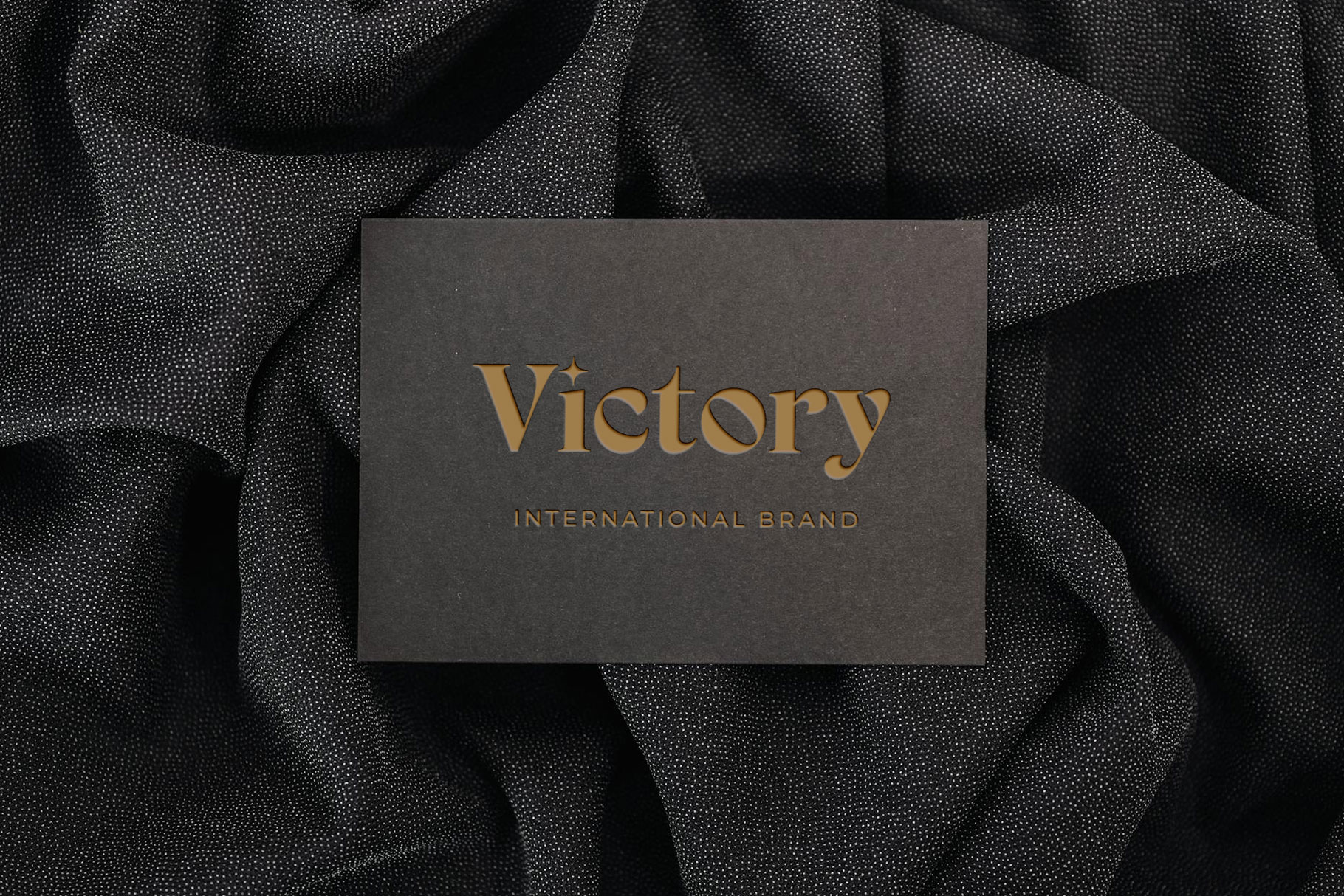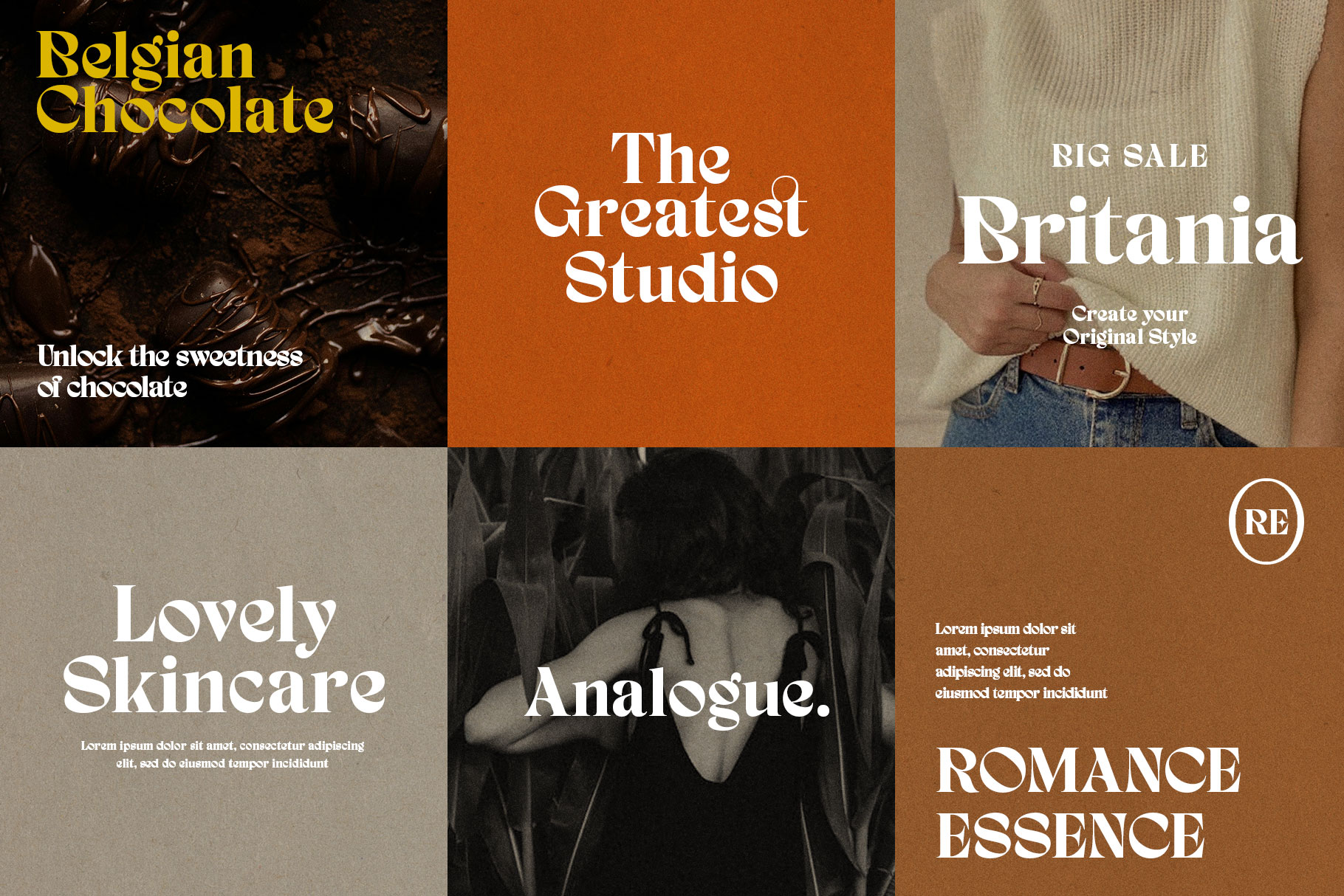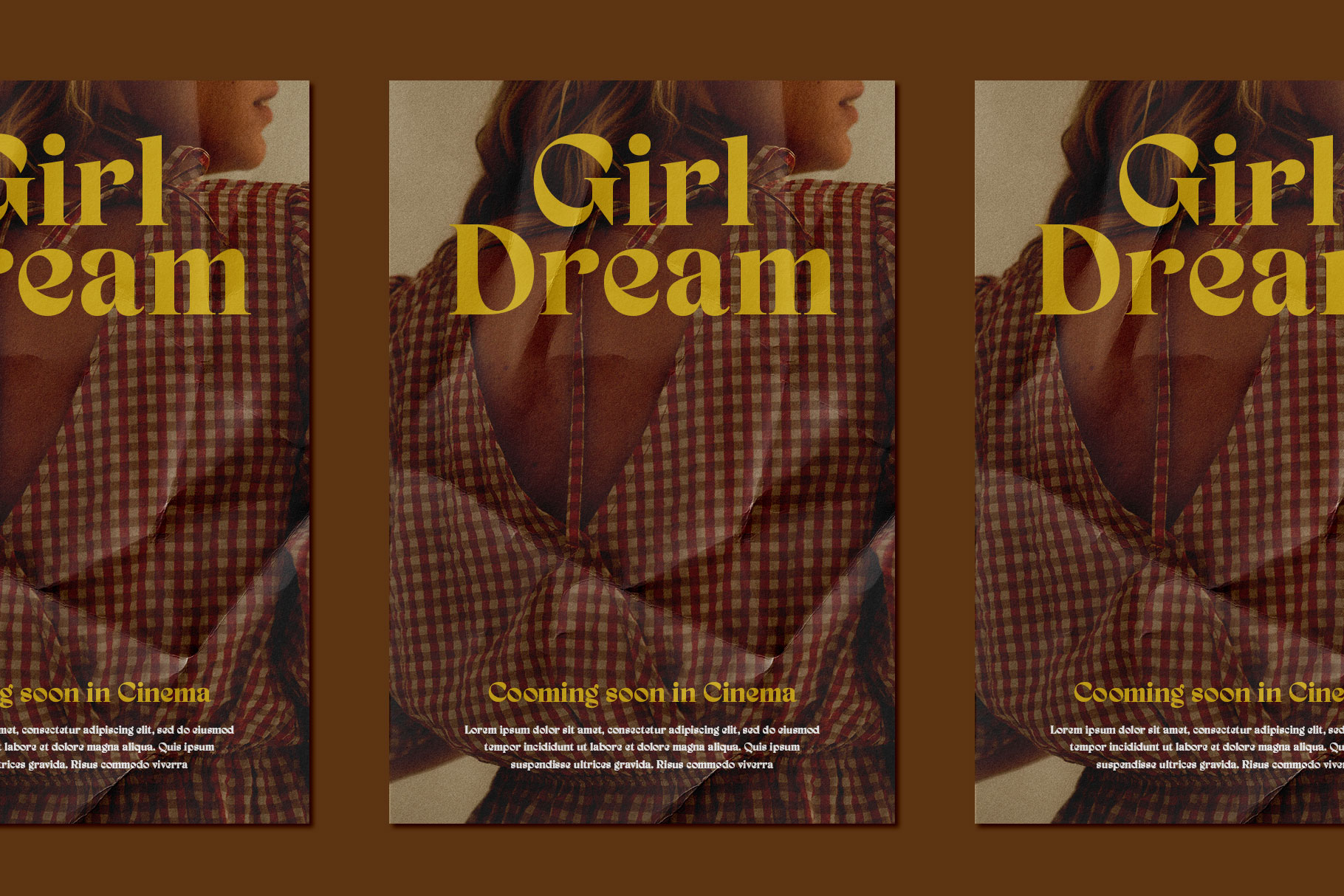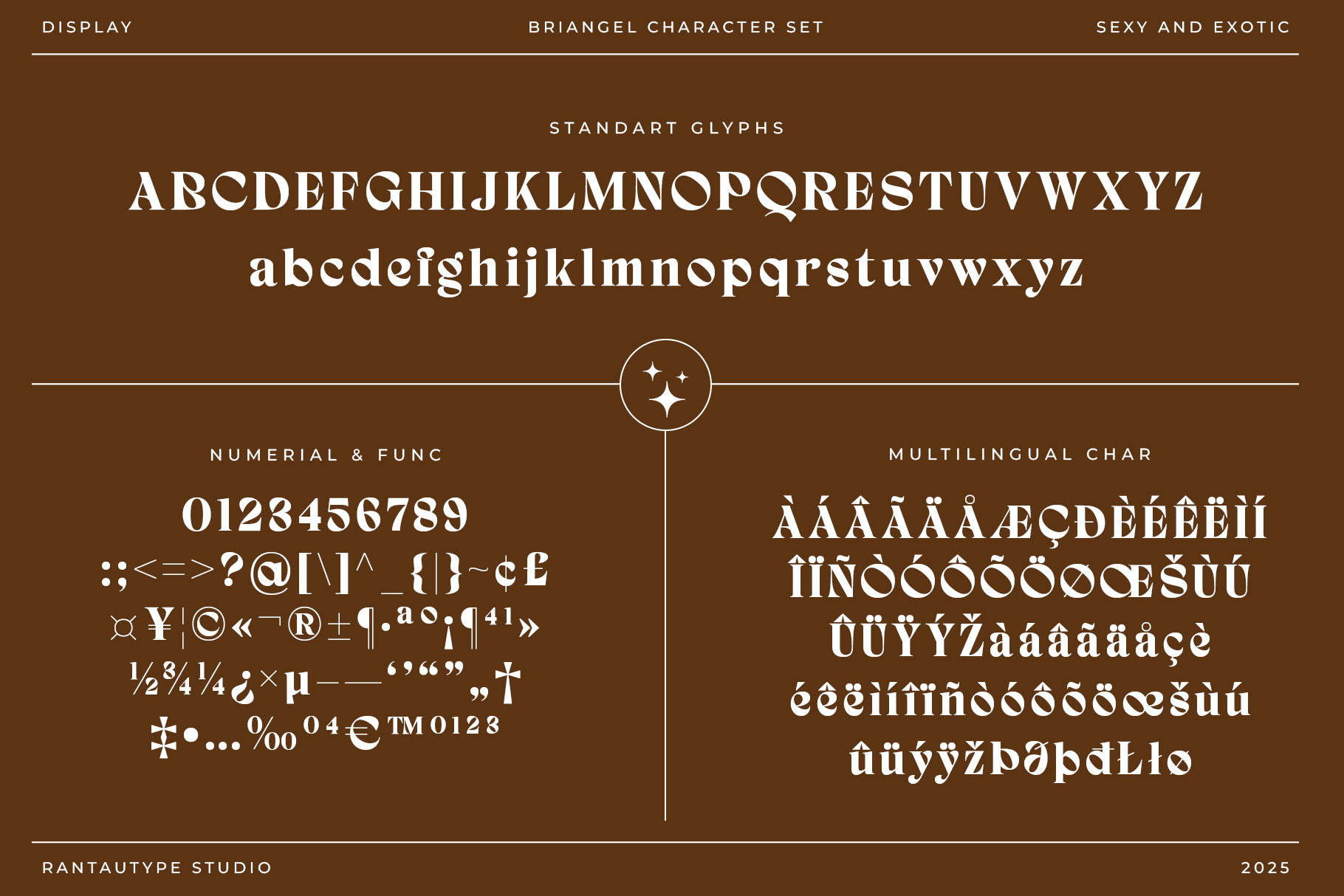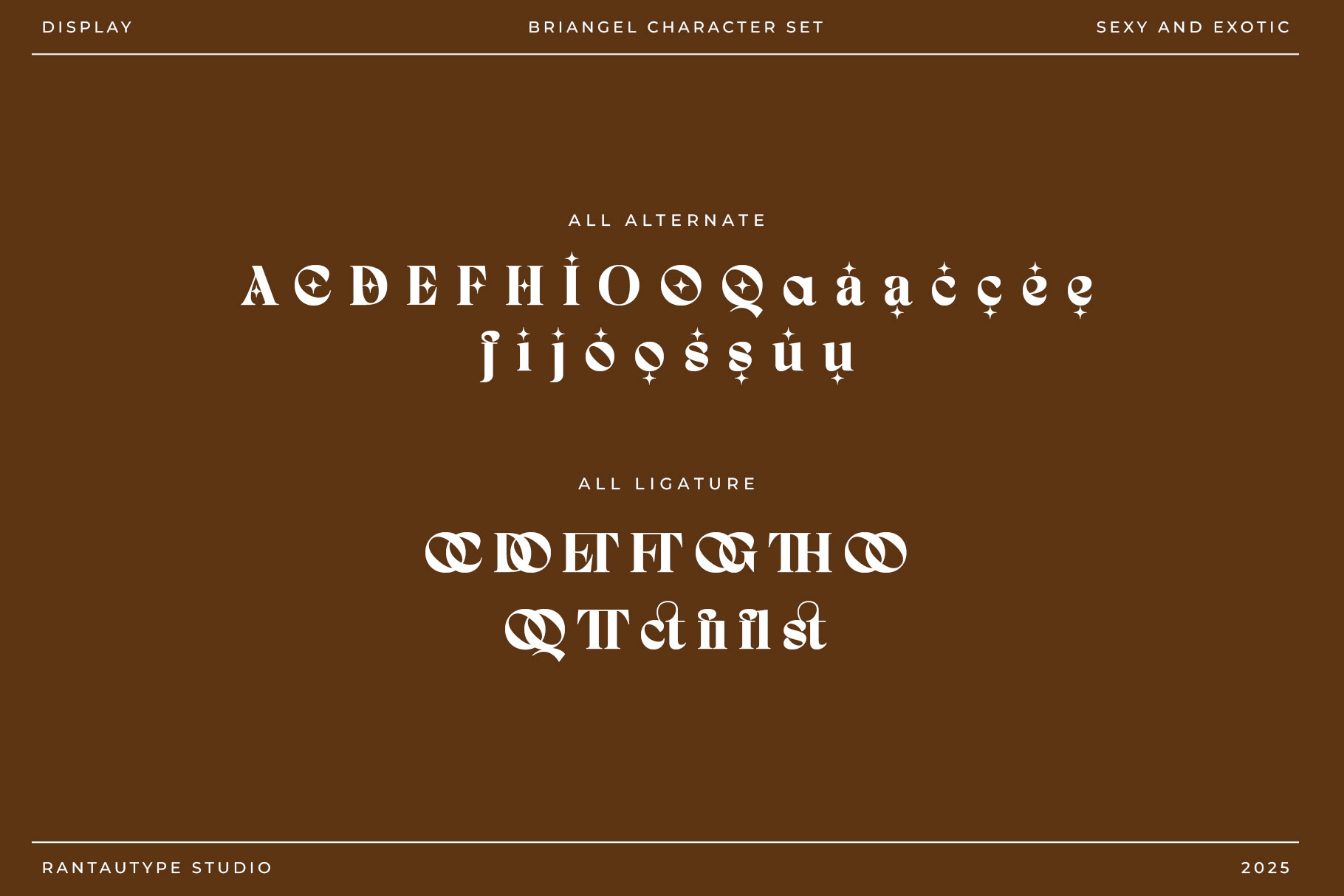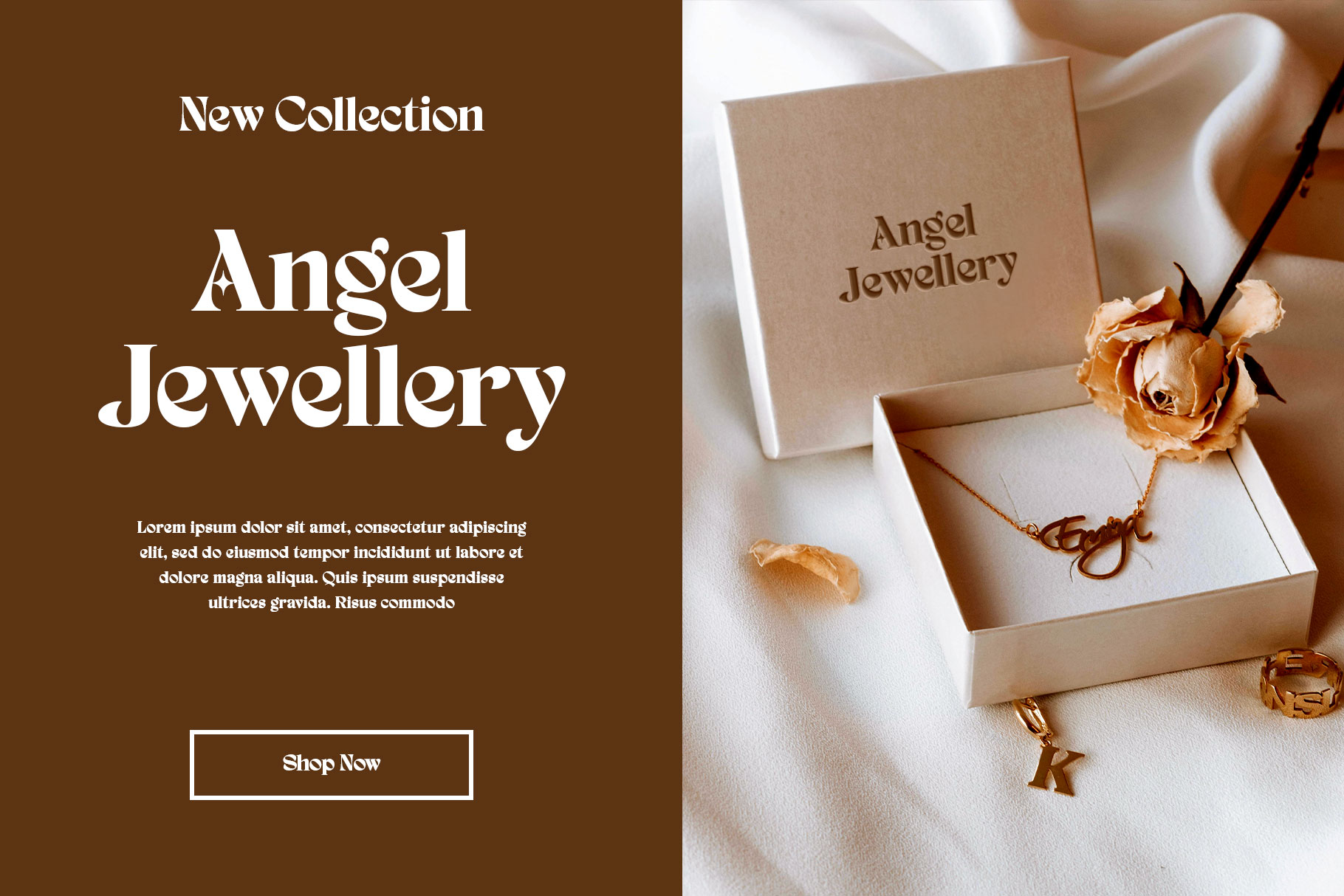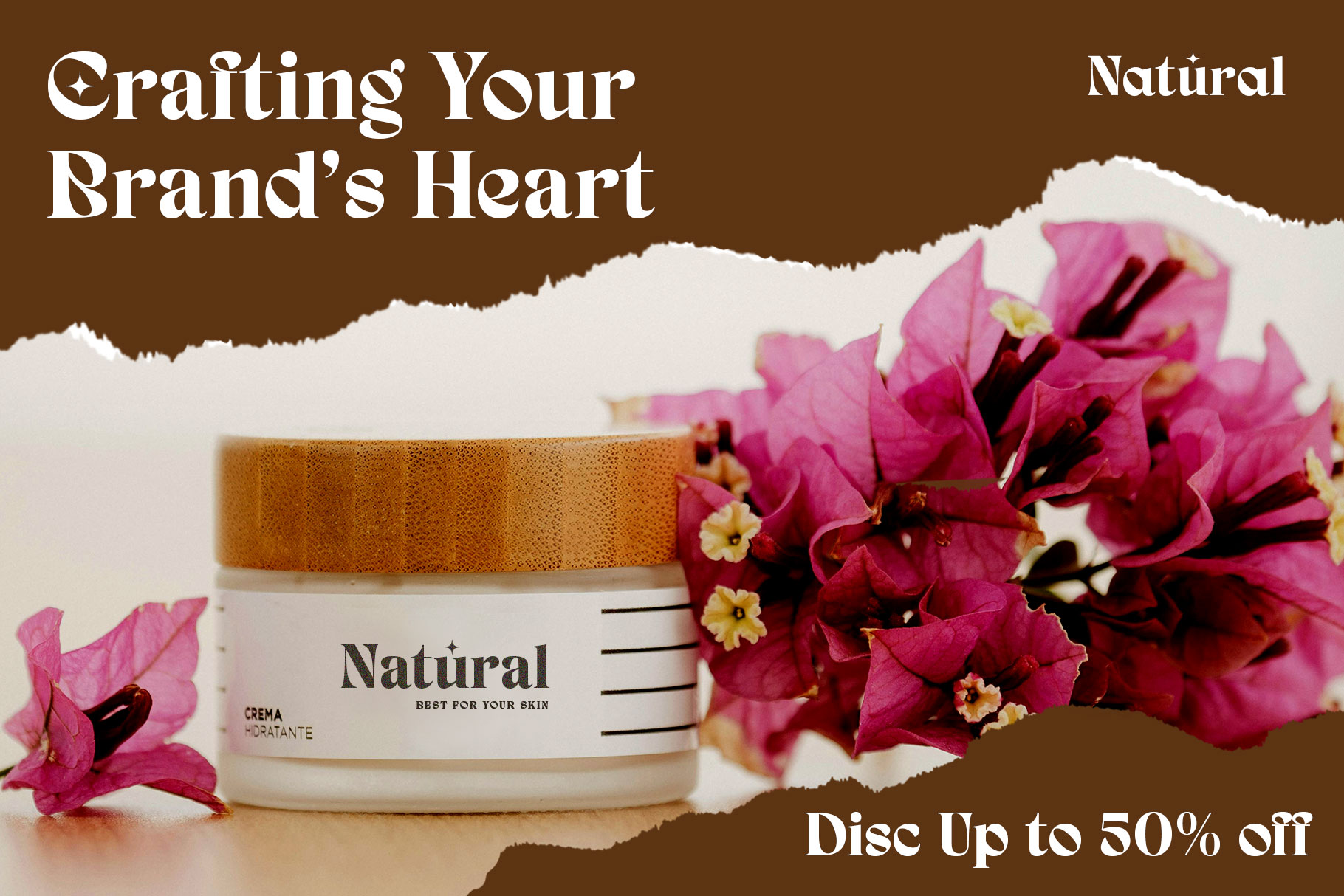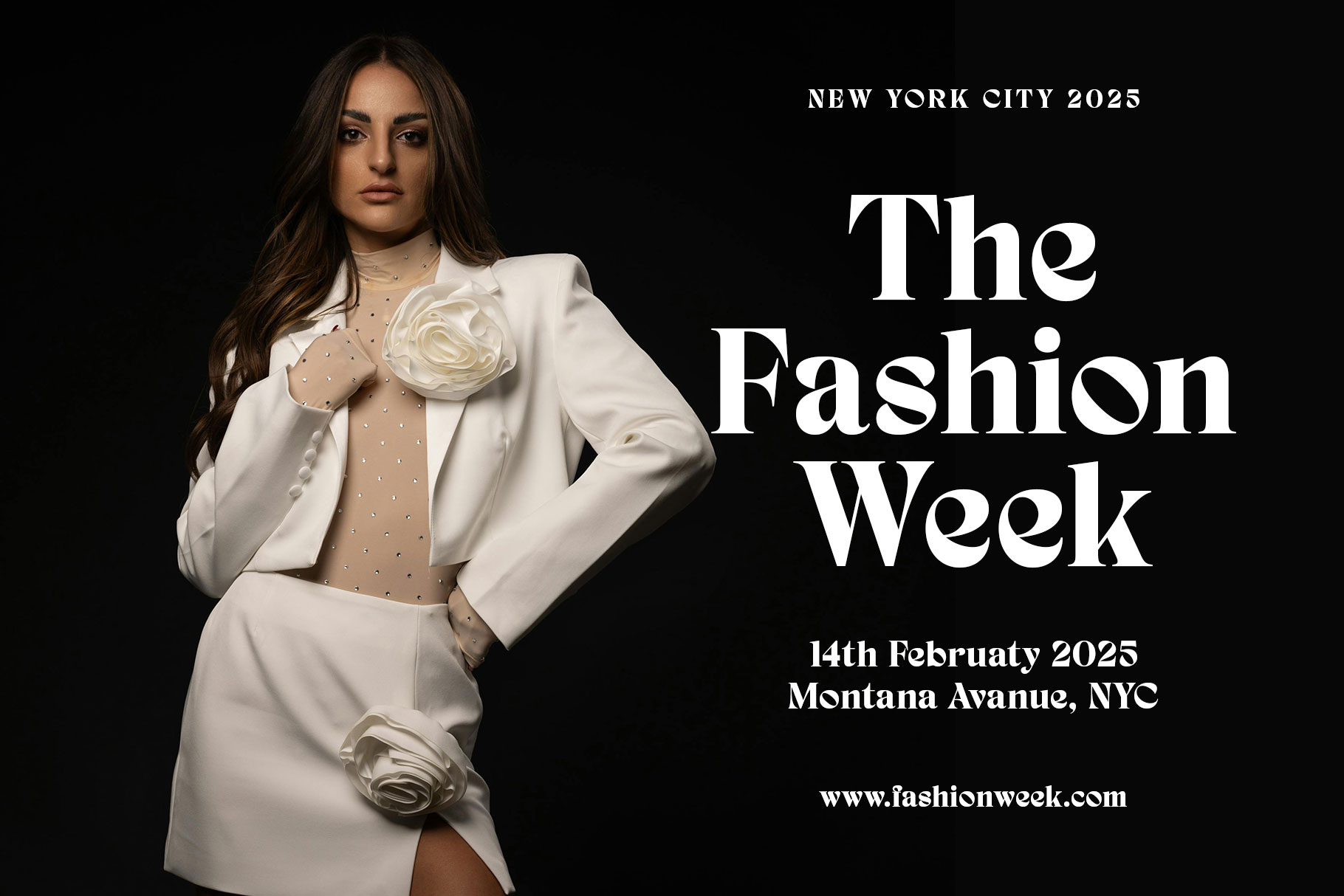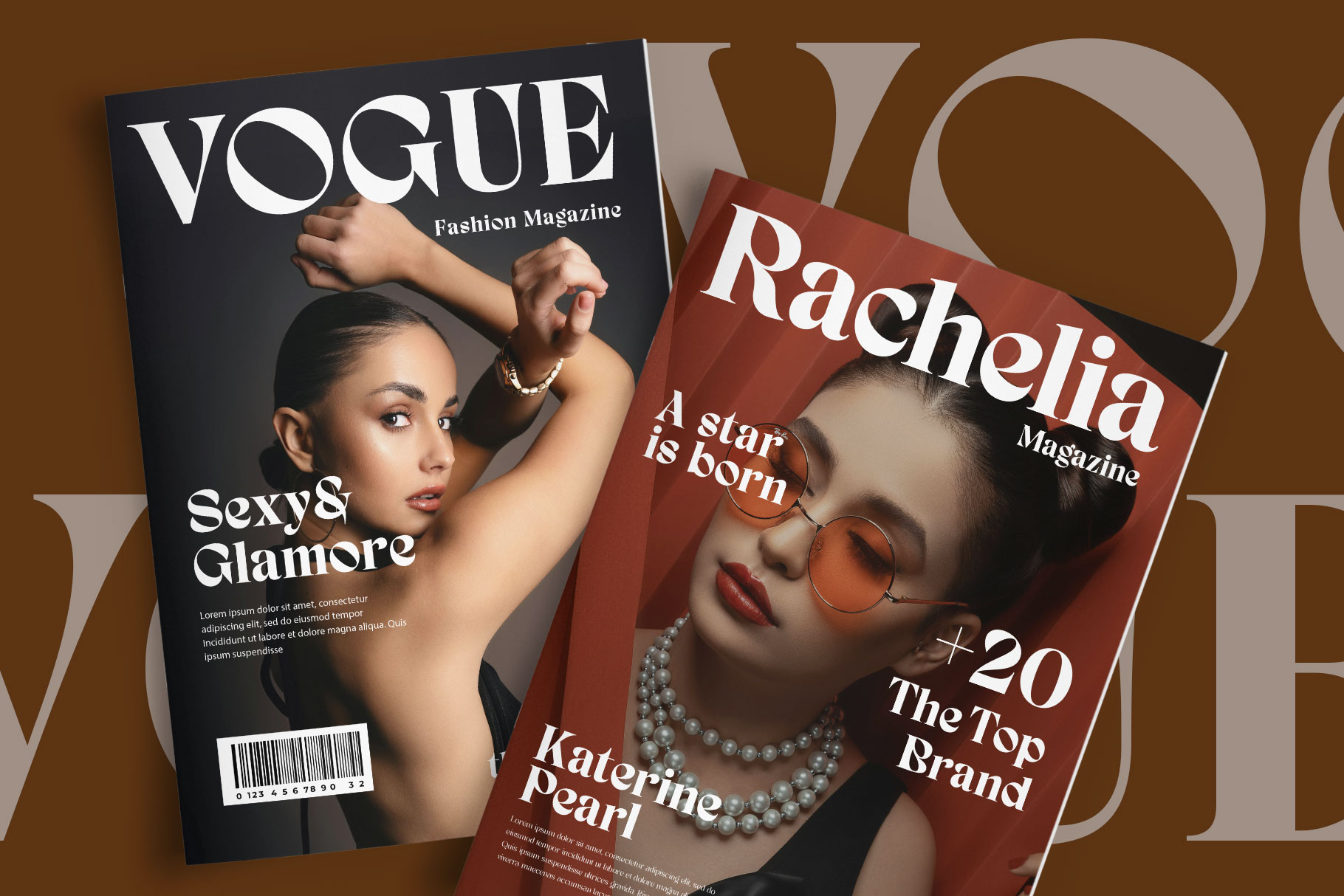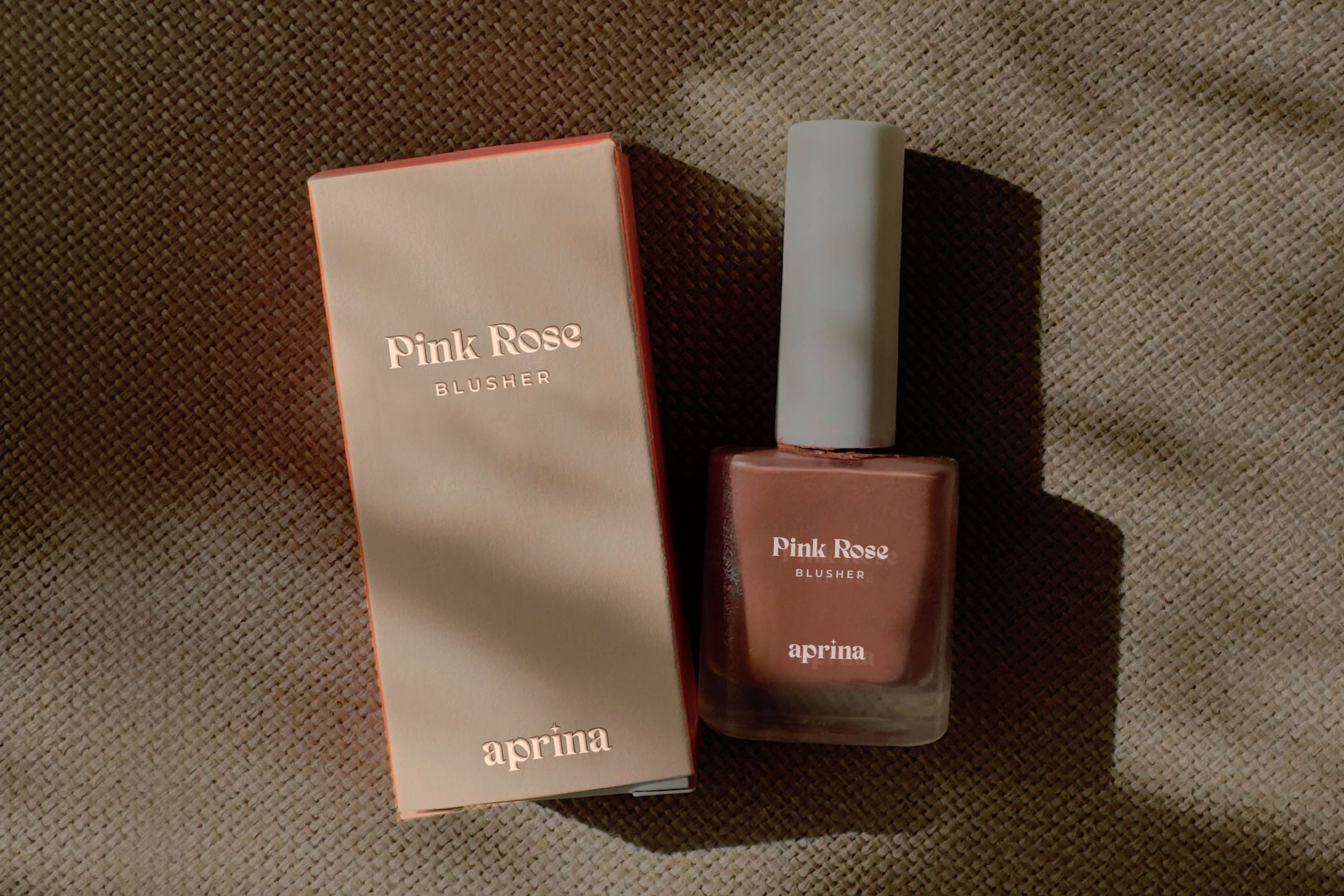
Briangel Exotic Serif Font
Briangel is modern display font with sexy and exotic character. Briangel bring unique shape into typography to create your project look awesome. Briangel is a perfectly choice for any creative endeavor, chic, lifestyle design such as logotype, advertisements, watermark on photography, stationery, branding project, display and magazine, invitation, corporate brand, product design, label, business project and many other project with elegant touch.